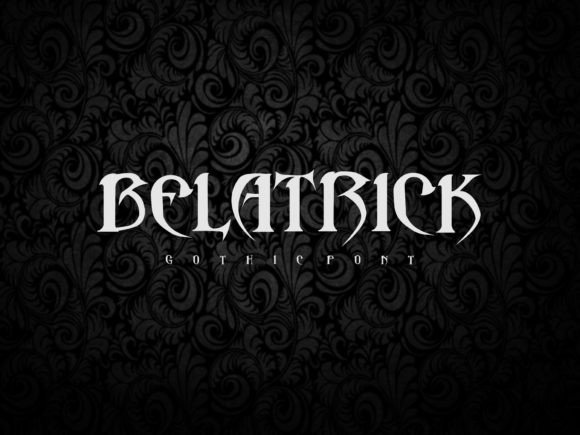
In the realm of typography, there exists a font family that exudes an aura of vintage elegance and macabre charm: Belatrick. Born from the creative mind of artnivora.std, this blackletter font is an homage to the days of old, capturing the essence of ancient manuscripts and medieval scrolls. With its ornate glyphs and sweeping curves, Belatrick is the perfect choice for those seeking to add a touch of mystery and sophistication to their designs.
Ornate and regal, Belatrick weaves a spell of enchantment, inviting the reader to embark on a journey through time. Its intricate details and elegant flourishes speak of a bygone era, evoking images of grand libraries and secret societies. Whether you're crafting logos, designing posters, or creating social media graphics, Belatrick casts an air of distinction, making your words stand out from the mundane.
Belatrick isn't merely a collection of letters; it's a gateway to a world of untold stories. Its vintage charm evokes a sense of nostalgia, transporting you to a time of chivalry and adventure. Use it to craft invitations for themed parties, design book covers that whisper of forgotten secrets, or create branding for businesses that seek to stand out from the ordinary. Unleash the power of Belatrick and let your designs transcend the boundaries of time.
Belatrick's versatility extends beyond its aesthetic appeal. With its strong, bold strokes and clear readability, this font is highly functional, ensuring that your message is conveyed with clarity and impact. Whether you're creating brochures, flyers, or presentations, Belatrick ensures that your text remains legible and engaging, leaving a lasting impression on your audience.